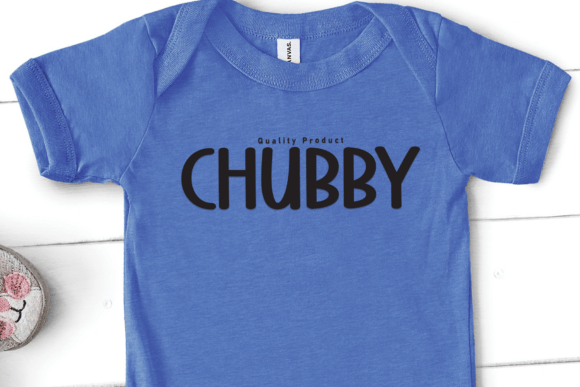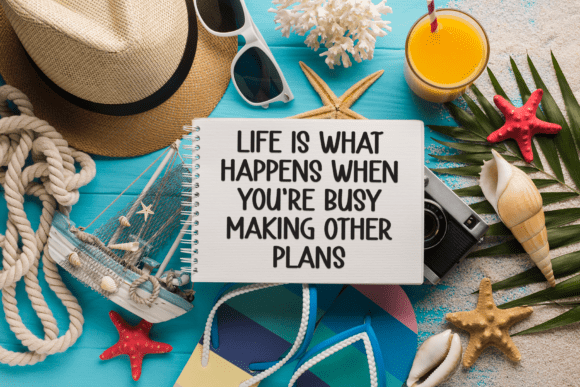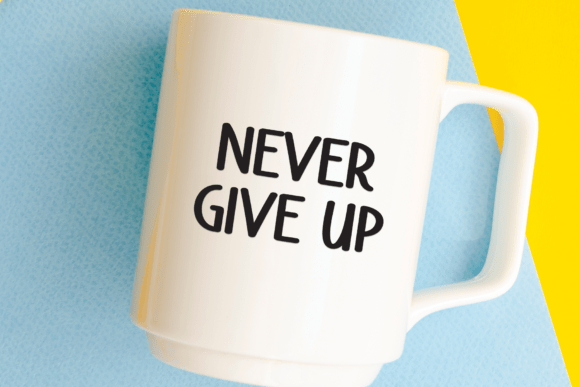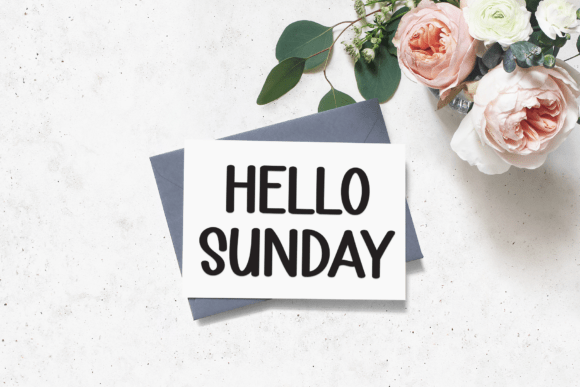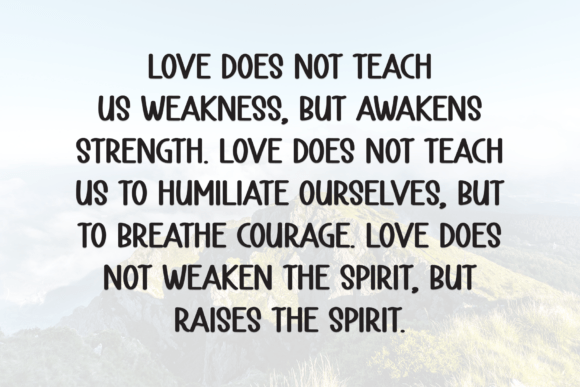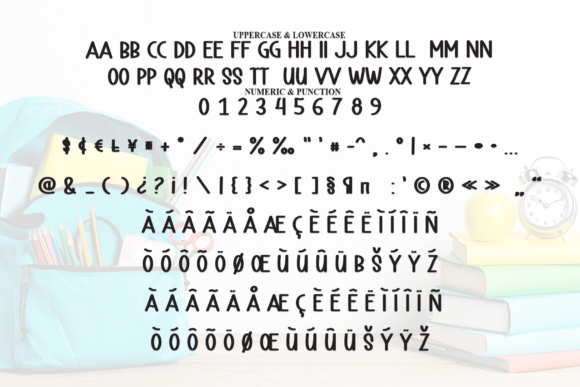
Discover the Timeless Elegance of the Back School Font
As designers, we’ve all had those ‘aha’ moments where we stumble upon a font that transports us to a world of endless creative possibilities. For me, it was when I first laid eyes on the ‘Back School Font’. Its sophisticated lines and gentle curves whispered tales of classic charm, beckoning me to explore its full potential. And, trust me, this beautifully crafted display font is about to become your new favorite companion in the world of design.
The Back School Font is more than just a pretty face; it’s a versatile tool designed to elevate your design projects to new heights. Whether you’re crafting wedding invitations, greeting cards, or any other creative endeavor, this font effortlessly brings a sense of comfort and radiance to your work. Its effortless simplicity and charming allure make it a valuable addition to any designer’s toolkit.
Key Features of Back School Font
- Unique Characteristics: The font features a unique, playful style with rounded edges and subtle textures, making it perfect for educational and children’s content.
- Font Weight: The font includes 3 different font weights: Regular, Bold, and Italic, allowing designers to add depth and emphasis to their text.
Back School Font Review
Overall, I have mixed feelings about the Back School Font. While it has some unique qualities, it also falls short in several areas.
- Playful and quirky vibe: The font has a fun, energetic feel that’s perfect for casual projects or children’s content.
- Expressive letterforms: The font’s lettering is quite expressive, with varying line weights and subtle flair at the ends of strokes.
- High legibility: Despite its playful nature, the font remains easy to read, even at smaller sizes.
- Limited versatility: The font’s quirky nature may not lend itself to more formal or professional projects.
- Not ideal for small text: While the font is legible at larger sizes, it may become too busy or overwhelming at smaller sizes.
- May not work well with complex layouts: The font’s expressive nature may clash with intricate or busy layouts.
Overall, I think the Back School Font is a fun, unique addition to any font collection. While it may not be suitable for all projects, it’s perfect for those looking to add a playful touch to their designs.
Tips for Getting the Most Out of Back School Font
Use Back School Font for educational and academic designs, such as school logos, flyers, and brochures.
Combine Back School Font with other fonts for a unique and eye-catching design.
Back School Font is commonly used for:
1. School logos and branding.
2. Educational flyers and brochures.
3. Academic
Are there any font variations or styles available for the Back School Font?
Yes, the Back School Font family includes various font styles, including a condensed version, an extended version, and a rounded version. These font styles can be used to create a range of visual effects and to accommodate different design requirements. You can also use the font in combination with other fonts to create a unique and custom look for your design projects.